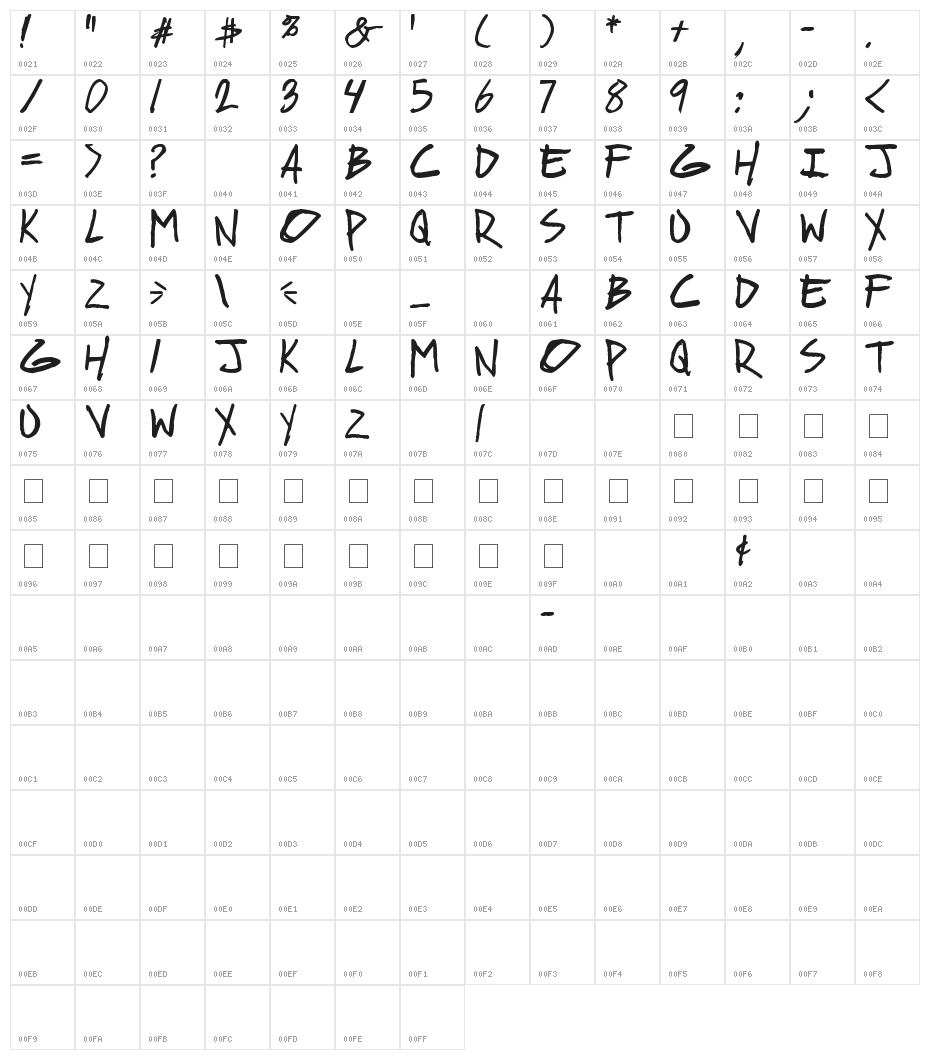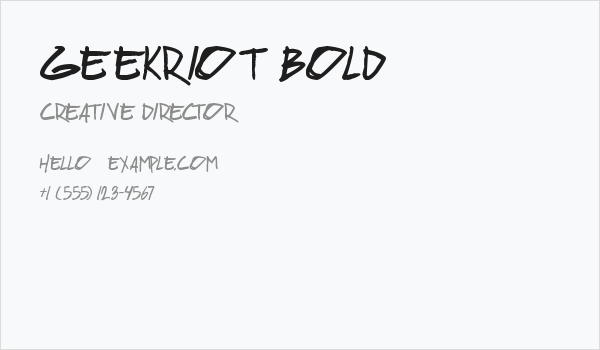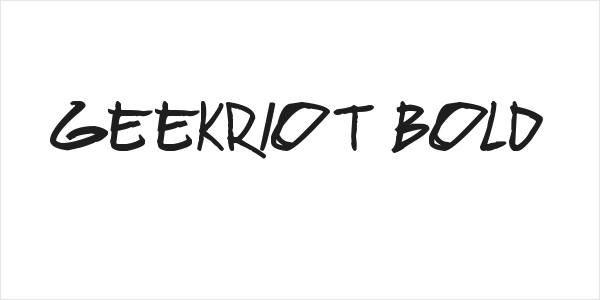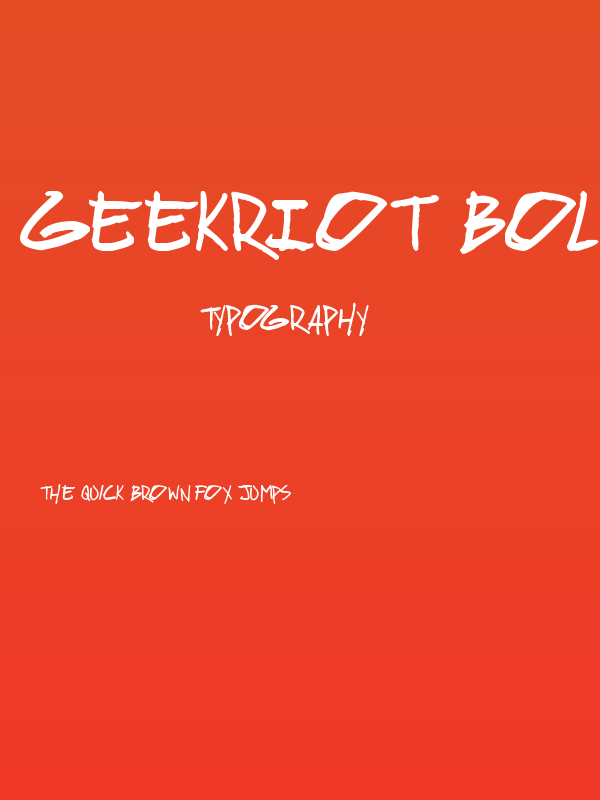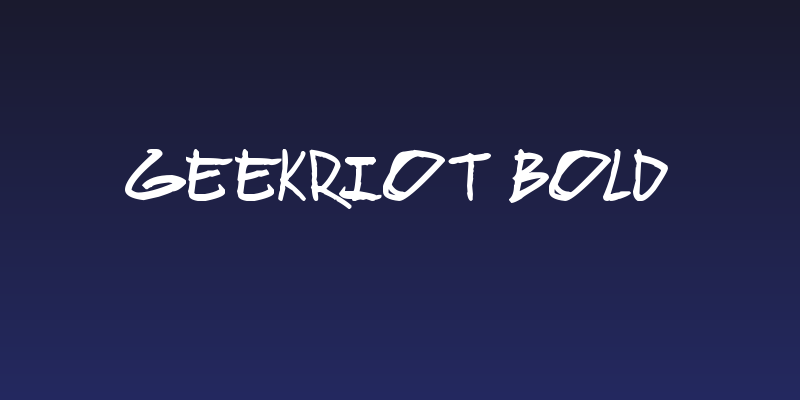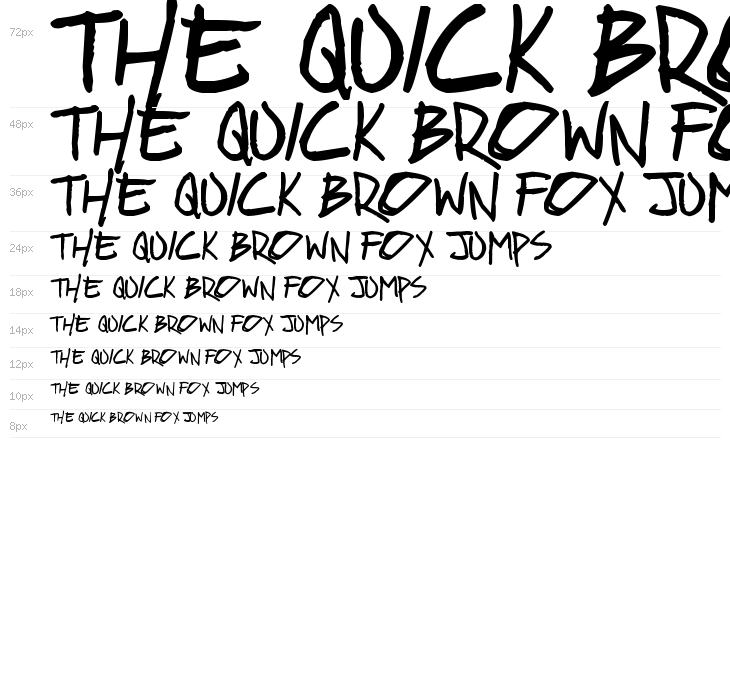
geekriot Bold Font
geekriot Bold Description
This font features a bold, handwritten style with a dynamic and energetic appearance. The characters are slightly slanted, giving a sense of movement and spontaneity. The strokes are thick and uneven, adding a casual and informal feel. The uppercase and lowercase letters maintain a consistent style, with the uppercase being more prominent. Numbers and special characters are designed to match the overall aesthetic, ensuring a cohesive look. This font is ideal for projects that require a personal touch or a playful vibe.
| Proposed Projects | Perfect for posters, social media graphics, branding projects, and any design that needs a personal or playful touch. |